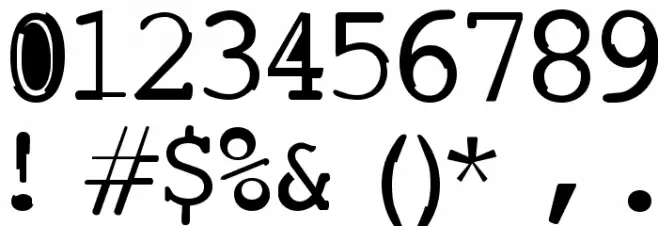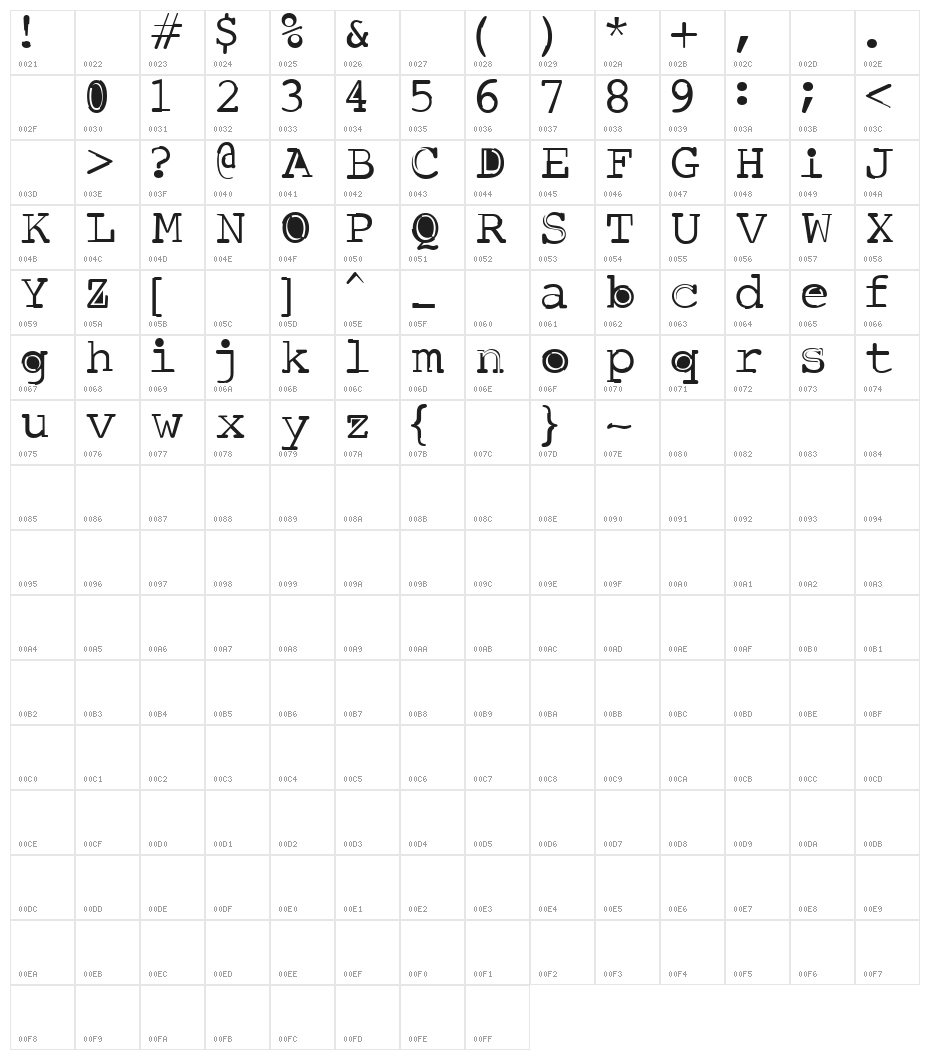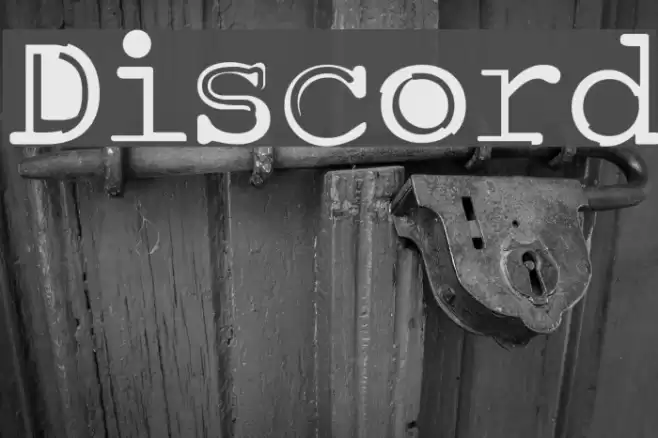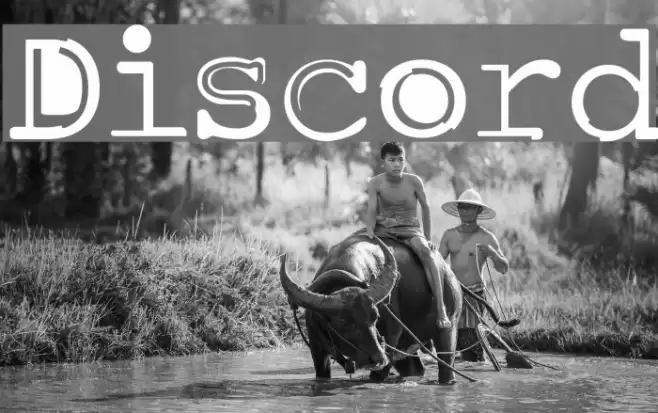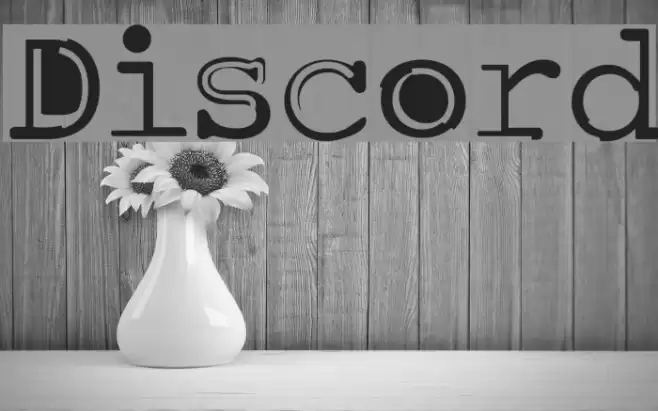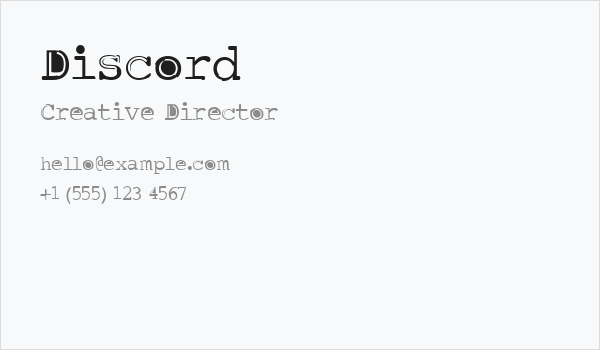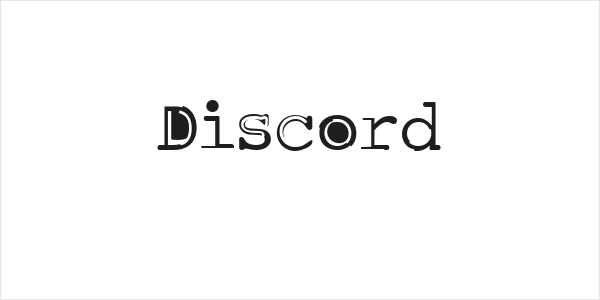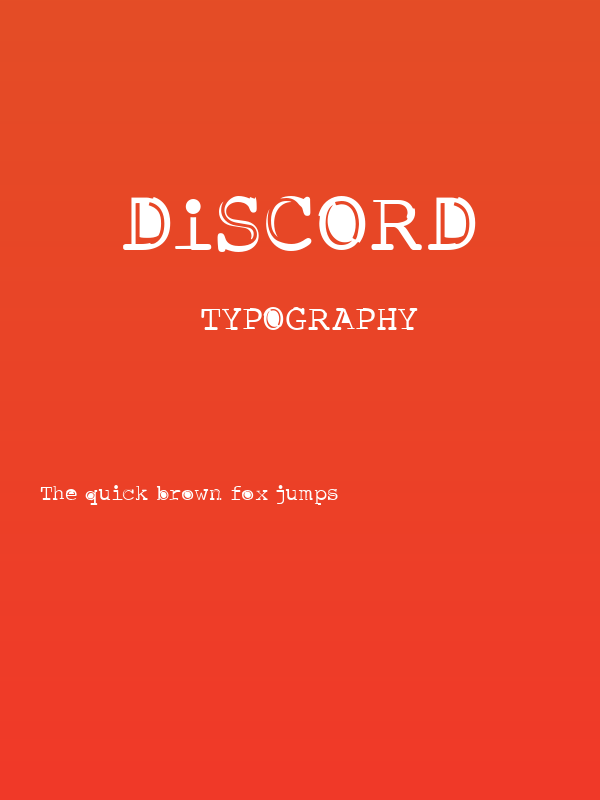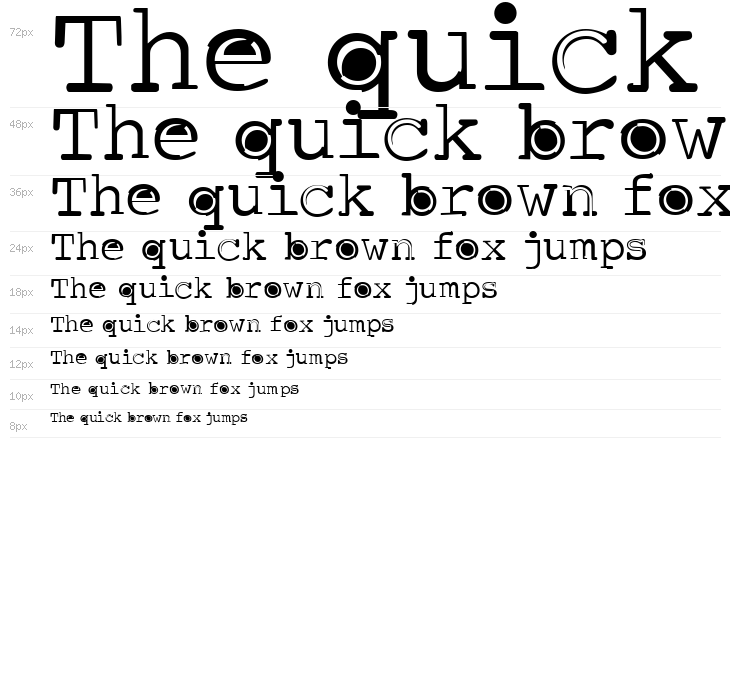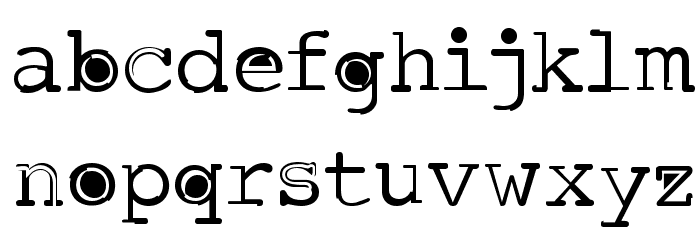
Discord Font
Discord Description
This font features a unique blend of modern and vintage styles, characterized by its distinct slab serif design. The uppercase letters exhibit a bold presence with strong, angular serifs, while the lowercase letters maintain a consistent, rounded form. The numerals are robust and easily legible, making them suitable for various applications. Special characters are crafted with attention to detail, ensuring they complement the overall aesthetic. The font's structure is both functional and decorative, offering versatility for creative projects. Its balanced weight and width make it adaptable for both digital and print media.
| Overall Style | Modern Vintage |
| Proposed Projects | Ideal for branding, editorial design, posters, and packaging where a strong, distinctive typeface is needed. |